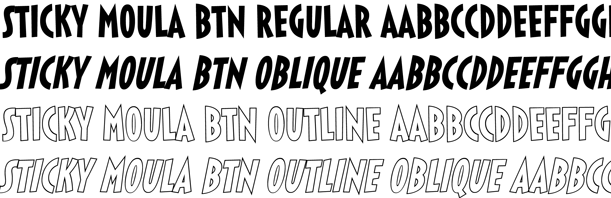
Sticky Moula BTN
Sticky Moula BTN is a heavy comic-style display family with a bold, rounded all-caps personality. Its simple, robust construction gives it strong title presence, while the softened edges keep it approachable and slightly offbeat rather than harsh. The family works well for posters, comics, packaging, kids’ graphics, signage, playful branding, and headline design that needs a chunky, attention-grabbing voice. With Regular, Outline, Oblique, and Outline Oblique styles, Sticky Moula BTN offers flexible options for creating lively display typography with extra impact.